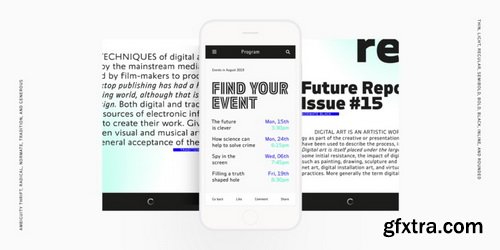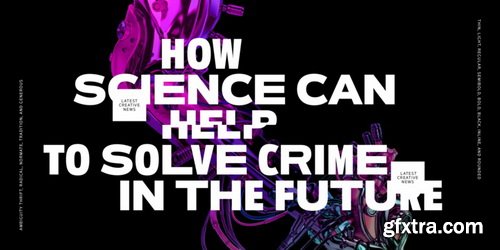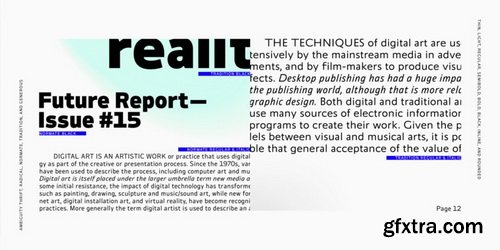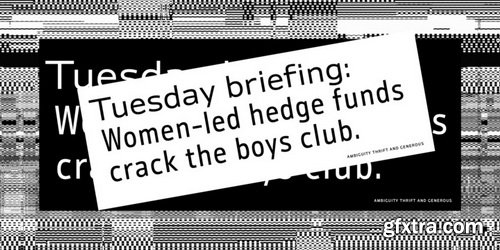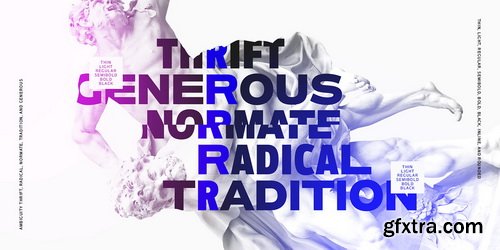
Ambiguity Font Family | 70 x OTF
Ambiguity is a type family with five distinct personalities or ‘states’, created as a tool for coaxing designers and brands out of their comfort zone. It embraces both tradition and radicality, as well as generosity and thrift, encouraging us to question our beliefs about the intersection of style and meaning. Tradition is conservative, relying on historical letter shapes. Radical rejects inherited ideas of proportion, making typically slender letterforms wide, and wide letterforms slender. “It’s contrarian,” says Nix. Thrift cherry picks the condensed shapes from Tradition and Radical, while Generous does the same for wide forms. Normate sits at the center, a synthetic blend of all of the others.